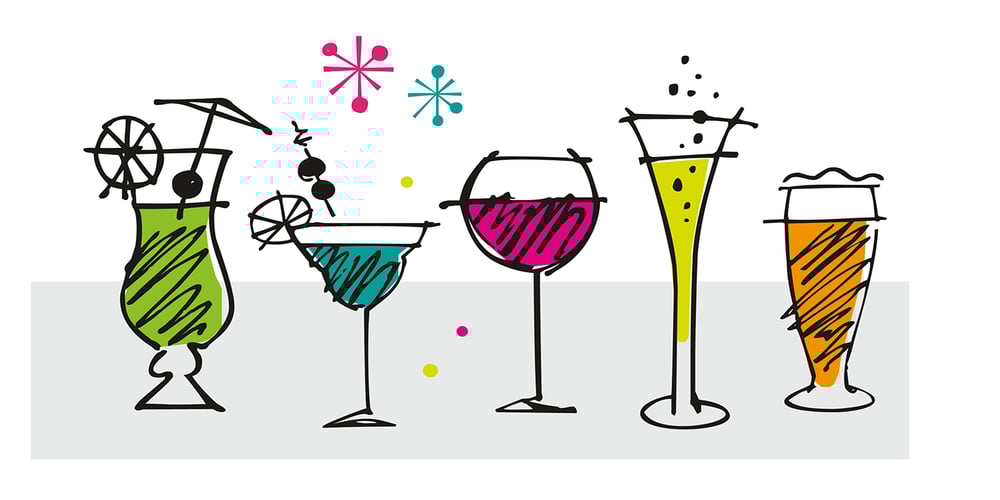
Happy Hour Doodles Font Family was designed by Rae Kaiser and published by Outside the Line. Happy Hour Doodles contains 1 styles and family package options. A collection of 30 retro illustrations of cocktails, drinks, beer, champagne, appetizers, canapés, candy, corkscrew, ice bucket, decanters, and 5 background graphics. Perfect for your next party flyer or invitation. Inspiration for the font came from a set of illustrations created for a Cocktail themed fabric contest on spoonflower.com. I also made a postcard for my etsy store. Then I expanded the set and make Happy Hour Doodles.